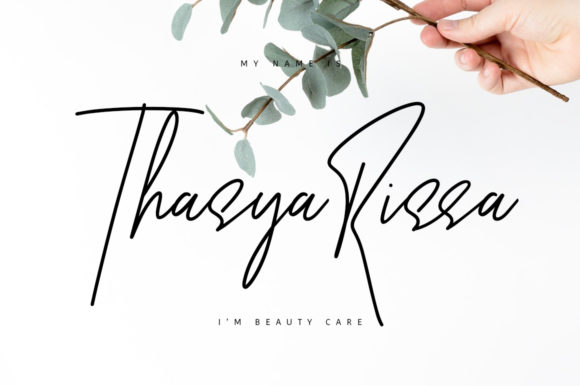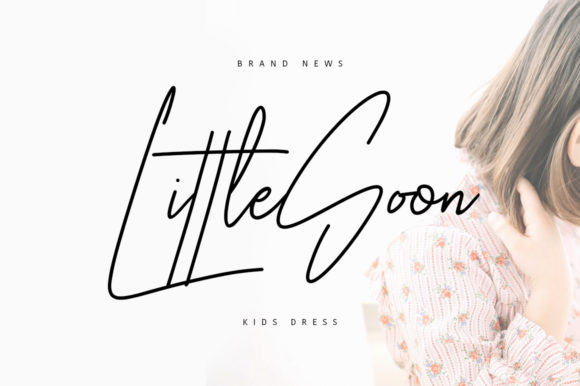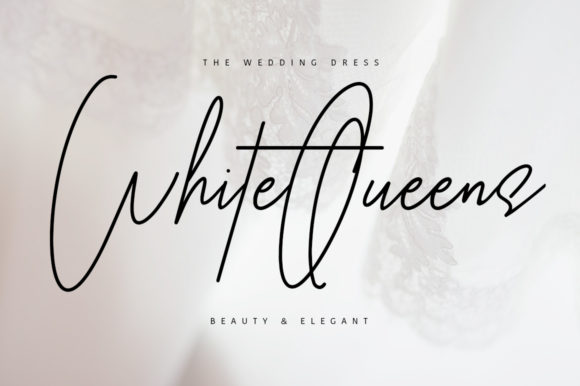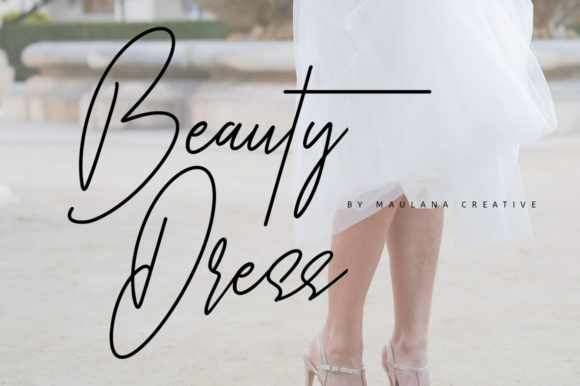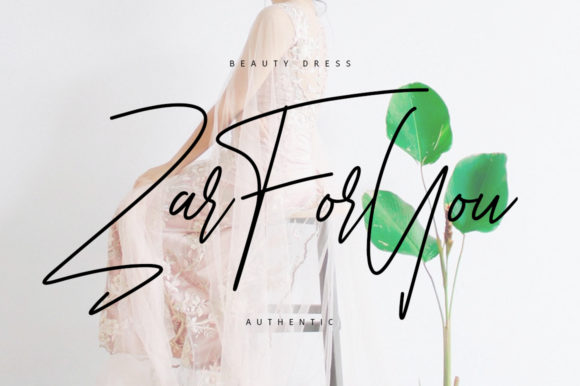
Introduction to Ollister Font
Have you ever found yourself in a creative rut, staring at a blank canvas with no inspiration in sight? For designers, this is a familiar feeling – one that can be both frustrating and motivating. It was on one such day that I stumbled upon the Ollister Font, and my entire design project took a dramatic turn. This beautiful, delicate font has a way of bringing even the most mundane ideas to life, and I’m excited to share its magic with you.
As a valuable design resource, the Ollister Font is perfect for designers looking to add a touch of elegance and sophistication to their creative projects. With its high-quality, thin lines and transparent background, it’s an ideal choice for backgrounds, quotes, and other design elements that require a delicate touch.
Key Features of Ollister Font
- High-quality, professional design suitable for various creative projects, including graphics, logos, and typography.
- Supports transparent background, allowing for seamless integration with other design elements.
- Designed with a clean, modern aesthetic, making it perfect for contemporary design projects.
- Available in a single weight, with a resolution of 300 DPI, suitable for print and digital applications.
Honest Review: Ollister Font
I recently stumbled upon the Ollister Font, and I must say, it’s a great addition to my design resource library. The high quality of this font is immediately noticeable, and it’s perfect for creative projects that require a touch of elegance.
Here are some things that work well: ✨
- Clear and easy-to-read characters
- Transparent background, making it easy to integrate with any design
While the Ollister Font is a great resource, there are a few limitations to consider: ⚠️
- It may not be as versatile as some other fonts, with a limited range of weights and styles
- The font may not be suitable for very large or very small text sizes
Overall, I’m impressed with the Ollister Font, and I think it’s a great option for designers looking for a high-quality, free font for their creative project. It’s definitely worth checking out, especially if you’re working on a design that requires a sophisticated and elegant look.
How to Use Ollister Font
The Ollister Font is a high-quality design resource ideal for creative projects. With its transparent background and sleek design, it’s perfect for adding a touch of sophistication to your work.
1. Experiment with different font sizes and styles to find the perfect look for your project.
2. Use the Ollister Font in combination with other design elements to create a cohesive look.
3. Don’t be afraid to try new things and push the boundaries of what’s possible with this font.
The Ollister Font is perfect for a variety of creative projects, including:
1. Branding and logos
Alternatives to Ollister Font
Aurulent Sans
Aurulent Sans is a high-quality, free download font suitable for creative projects requiring a clean and modern design. It features a transparent background, making it ideal for use on websites and digital interfaces.
When to use: Aurulent Sans is perfect for creating a sleek and minimalist design, ideal for tech startups, blogs, and e-commerce websites.
Comparison to Ollister Font: Aurulent Sans has a similar modern feel to Ollister Font, but with a more minimalist approach, making it a great alternative for designers looking for a clean and simple design resource.
Didact Gothic
Didact Gothic is a versatile font suitable for a wide range of creative projects, from brochures to websites. It features a high-quality design with a transparent background, making it easy to use on any design resource.
When to use: Didact Gothic is perfect for creating a professional and elegant design, ideal for corporate websites, magazines, and newspapers.